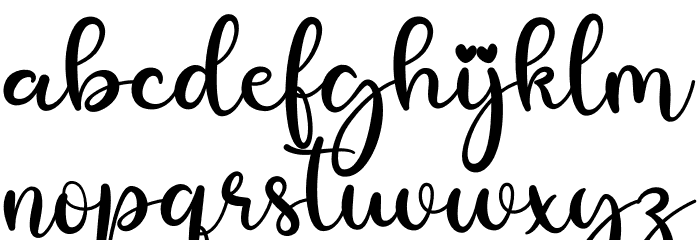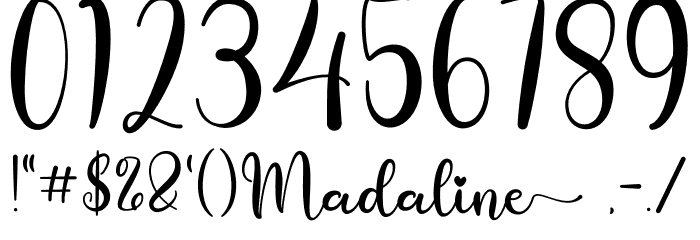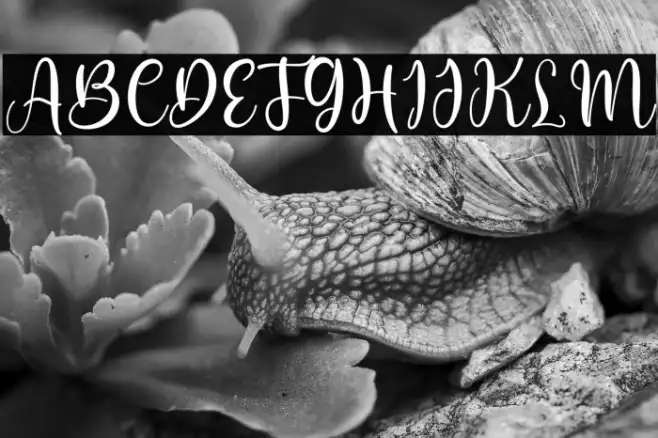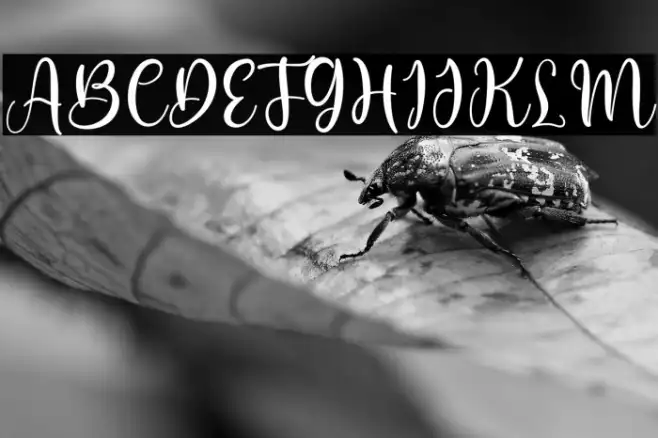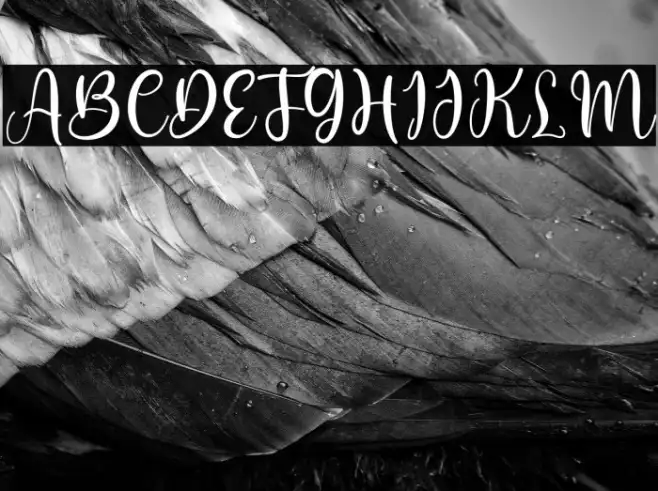
Madaline Font
This font features a flowing, cursive style with elegant loops and swashes, giving it a handwritten appearance. The uppercase letters are tall and slender, with a graceful, airy feel, while the lowercase letters maintain a consistent, smooth flow. The numerals are distinct and slightly more structured, providing a nice contrast to the letters. Special characters are designed with the same fluidity, ensuring a cohesive look throughout. The overall design is both sophisticated and approachable, making it suitable for a variety of creative projects.
A flowing, cursive font with elegant loops and a handwritten style.
- Font: Madaline
- Proposed Projects: Ideal for wedding invitations, greeting cards, branding, and logo design.
- Category: Script
- Use Case: Logos, Invitations, Greeting Cards